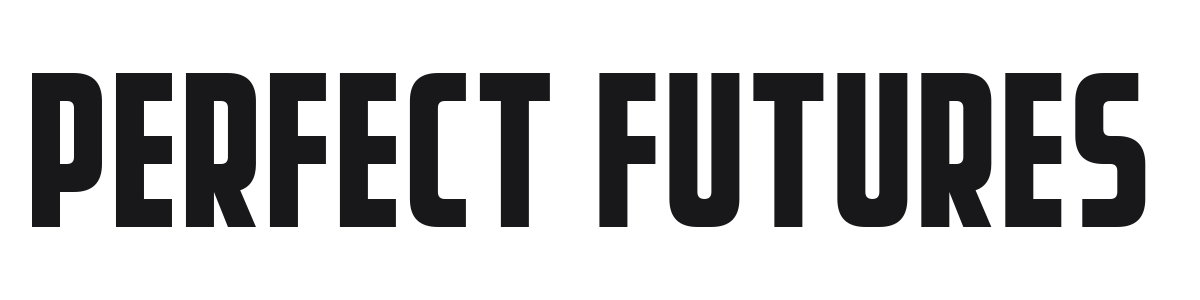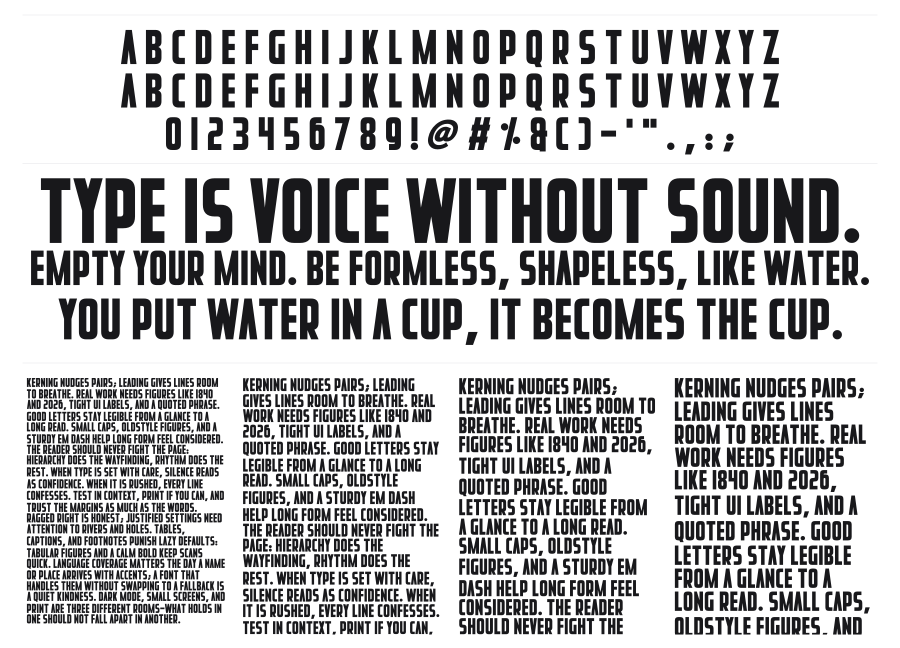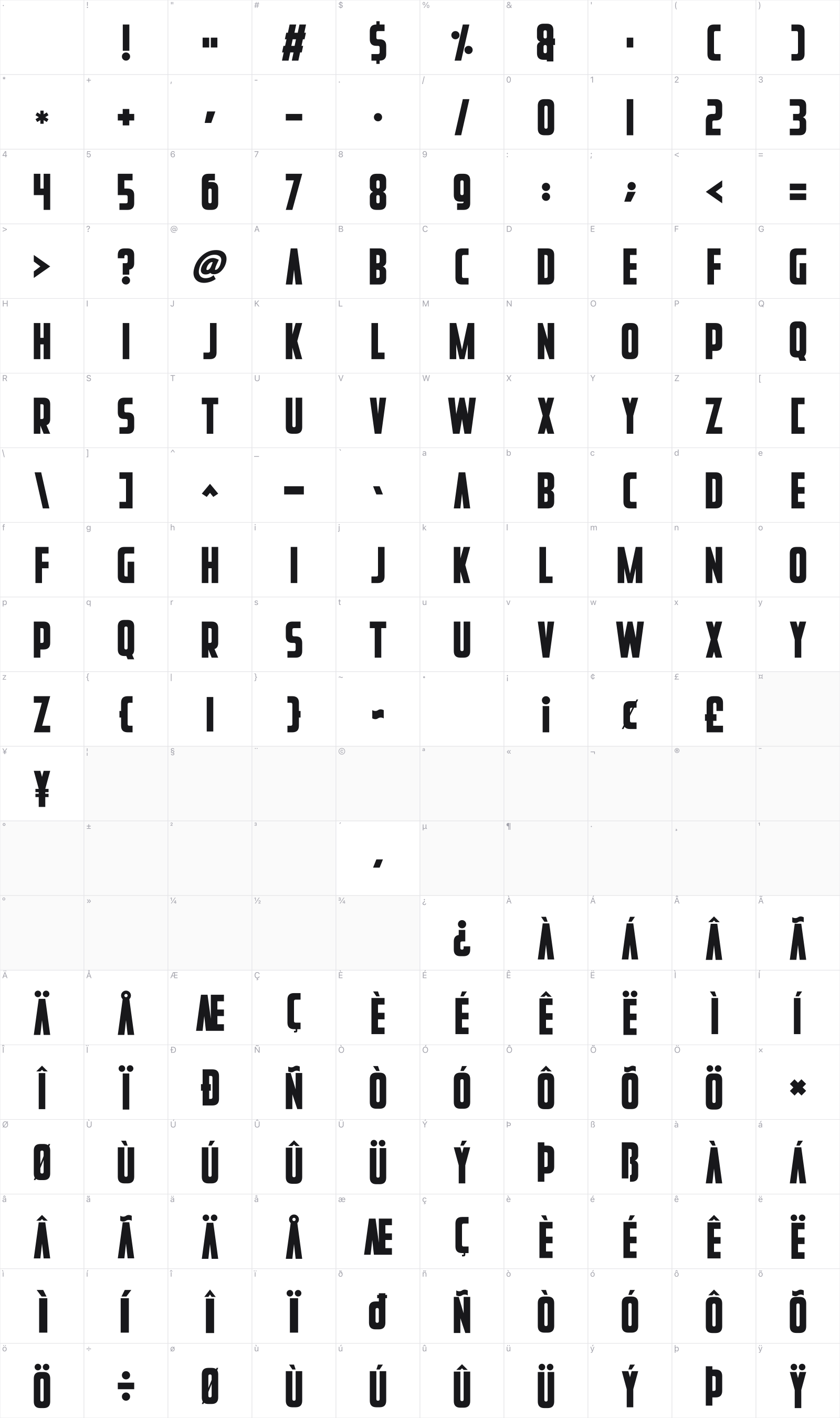
Perfect Futures
Perfect Futures is a tightly condensed bold grotesque with an aggressive, compressed silhouette. Squared terminals and subtly tapered stroke junctions give it a hard industrial edge that sits somewhere between classic gothic grotesque and contemporary display design. It commands attention at large sizes and carries real force in logos, posters, and editorial headlines.